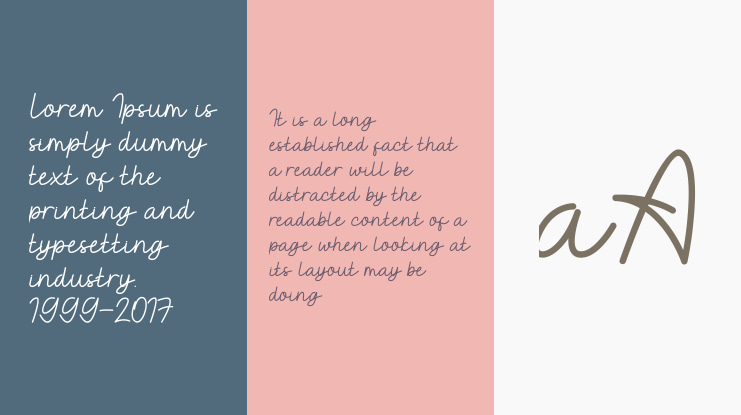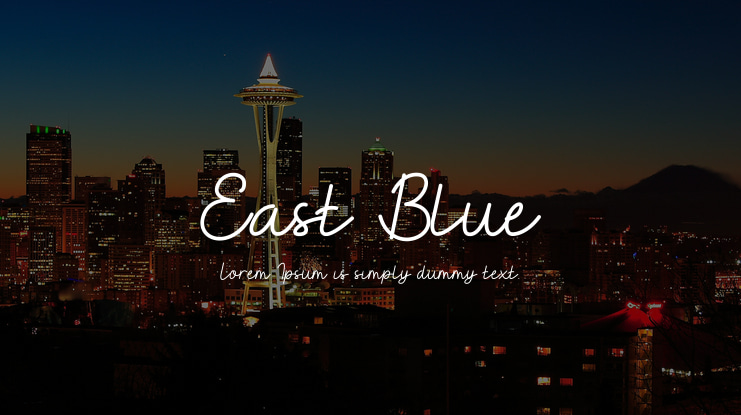
East Blue Font
East Blue - monoline script that is made with a semi-signature style that looks modern and luxurious.
East Blue - will be perfect for magazines, business cards, invitations, and all designs that require signature, modern and luxurious elements.